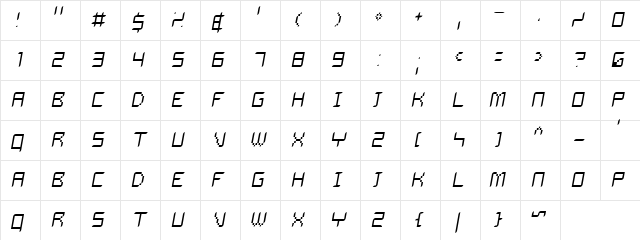
Delilah ThinOblique
Design Context for Delilah Typeface
Delilah is a composed and adaptable typeface that performs quietly and consistently across a wide range of design contexts. The slanted form adds forward momentum and visual energy. Its slender proportions lend an understated elegance to any composition.